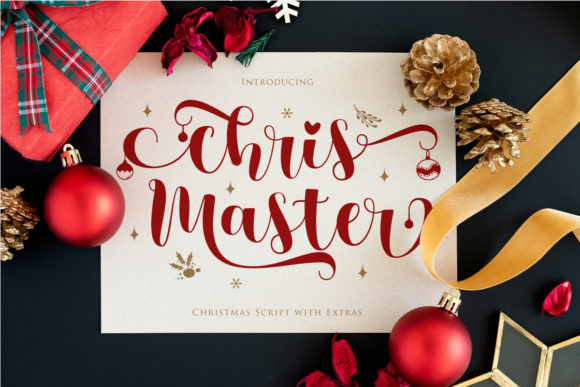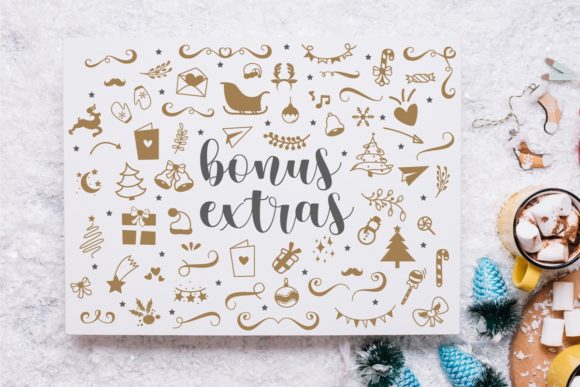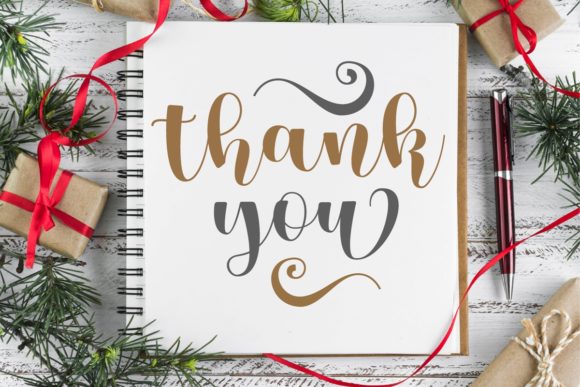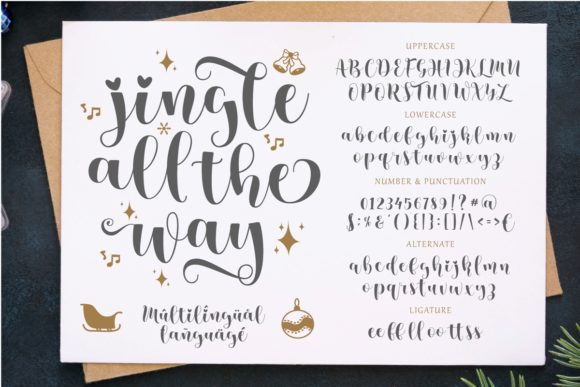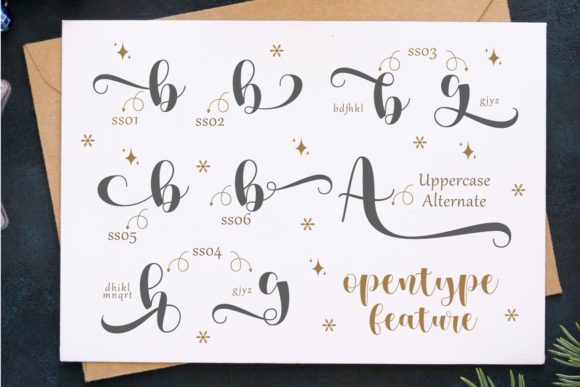
Chris Master Font
About Chris Master Font
Chris Master is a beautiful and romantic handwritten font. It looks beautiful on a variety of designs requiring a personalized style, such as wedding invitations, thank you cards, weddings, greeting cards, logos and so on. Chris Master is PUA encoded which means you can access all of the glyphs and swashes with ease!